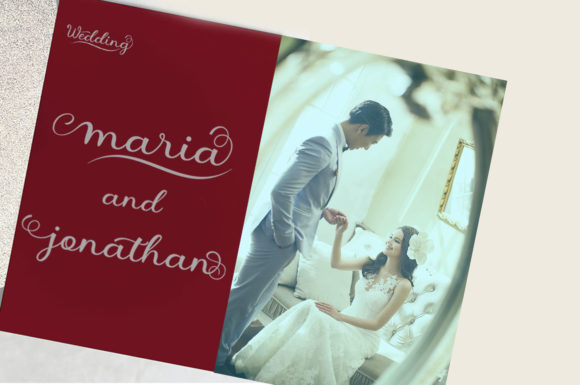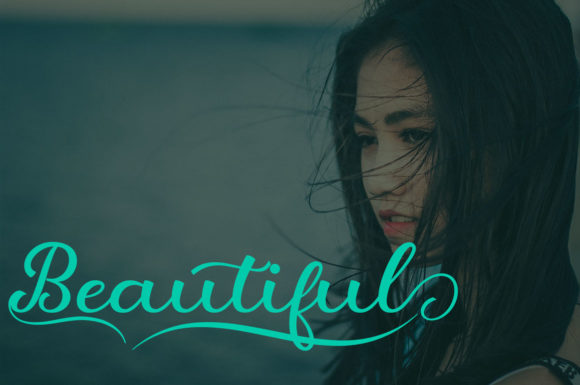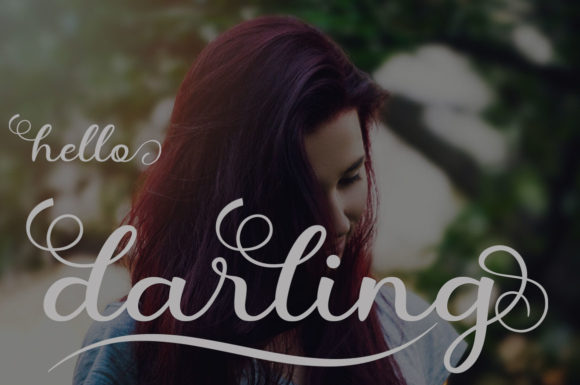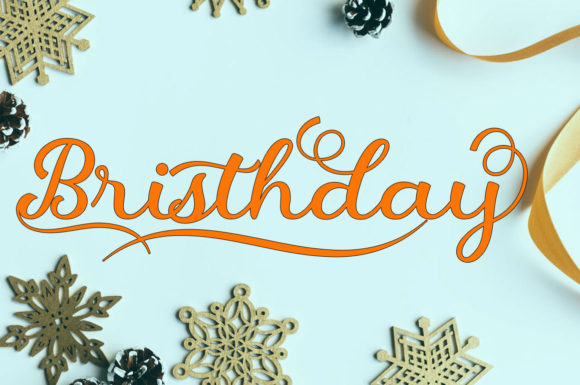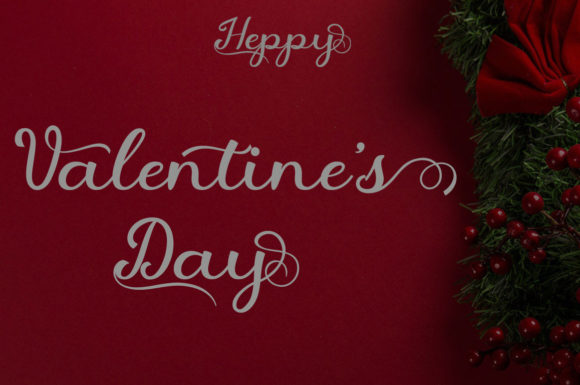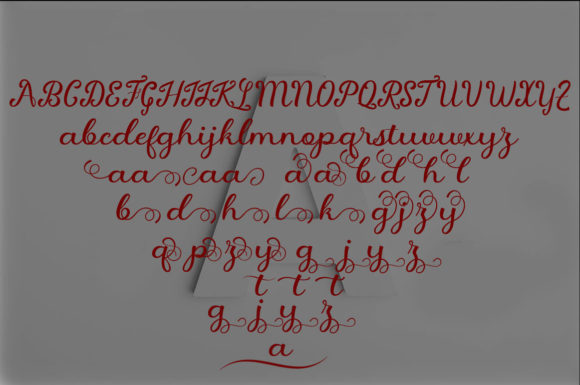
Introducing Absolute Font: A Modern Calligraphy Marvel
The world of typography is vast and wondrous, with fonts ranging from classic serif to modern sans-serif and everything in between. Among these, calligraphy fonts hold a special place for their elegance, fluidity, and the personal touch they bring to any design project. One such marvel in the realm of calligraphy is the Absolute Font, a modern calligraphy font that has been making waves with its unique forms and natural writing style.
The Essence of Absolute Font
The Absolute is a modern calligraphy font that embodies the perfect blend of contemporary design and traditional calligraphy. It is characterized by its unique forms of calligraphy and a very natural writing style, making it stand out in the crowded world of digital fonts. This font is not just a tool for writing; it’s an artistic statement that can elevate any design project to new heights.
Key Features of Absolute Font
• Unique Calligraphy Forms: The Absolute Font boasts of its distinctive calligraphy forms that are not only visually appealing but also highly legible. Each letter is crafted with precision and a keen eye for detail, ensuring that the text is easy to read while still conveying a sense of elegance and sophistication.
• Natural Writing Style: What sets the Absolute Font apart is its very natural writing style. It mimics the fluidity and spontaneity of handwriting, making it perfect for projects that require a personal touch. Whether it’s a wedding invitation, a branding project, or a personal blog, this font can add a layer of warmth and authenticity.
• Versatility: The Absolute Font is incredibly versatile, suitable for a wide range of design projects. From digital applications like websites and social media graphics to print materials such as brochures, posters, and business cards, this font can adapt to any medium with ease.
• Modern Aesthetic: With its clean lines and modern aesthetic, the Absolute Font is perfect for designers and crafters looking to give their projects a contemporary look. It’s ideal for branding and advertising projects that require a fresh and modern feel.
Applications of Absolute Font
The applications of the Absolute Font are vast and varied. Designers can use it to:
• Create stunning wedding invitations and event cards that stand out.
• Develop a unique brand identity that speaks of elegance and modernity.
• Design engaging social media content that captures the audience’s attention.
• Produce beautiful and readable website content that enhances user experience.
Why Choose Absolute Font?
In a market flooded with countless fonts, why should designers and crafters choose the Absolute Font? The answer lies in its unique blend of modernity and tradition, legibility, and the emotional connection it can create. Here are a few compelling reasons:
• Emotional Connection: The natural writing style of the Absolute Font can help create an emotional connection with the audience, making your message more relatable and impactful.
• Stand Out: In a sea of standard fonts, the Absolute Font can help your project stand out, giving it a distinctive look that captures attention.
• Professionalism: Despite its creative and artistic vibe, the Absolute Font maintains a level of professionalism, making it suitable for business and corporate projects as well.
The Absolute Font is a remarkable addition to the world of typography, offering a unique blend of modern calligraphy and natural writing style. Its versatility, legibility, and aesthetic appeal make it an excellent choice for designers and crafters looking to elevate their projects. Whether you’re working on a branding project, creating digital content, or designing print materials, the Absolute Font can add that special touch that makes your work truly memorable.
In conclusion, if you’re on the lookout for a font that combines the elegance of calligraphy with the freshness of modern design, look no further than the Absolute Font. It’s not just a font; it’s a statement, a reflection of your creativity and a tool that can help bring your vision to life in the most beautiful way possible.